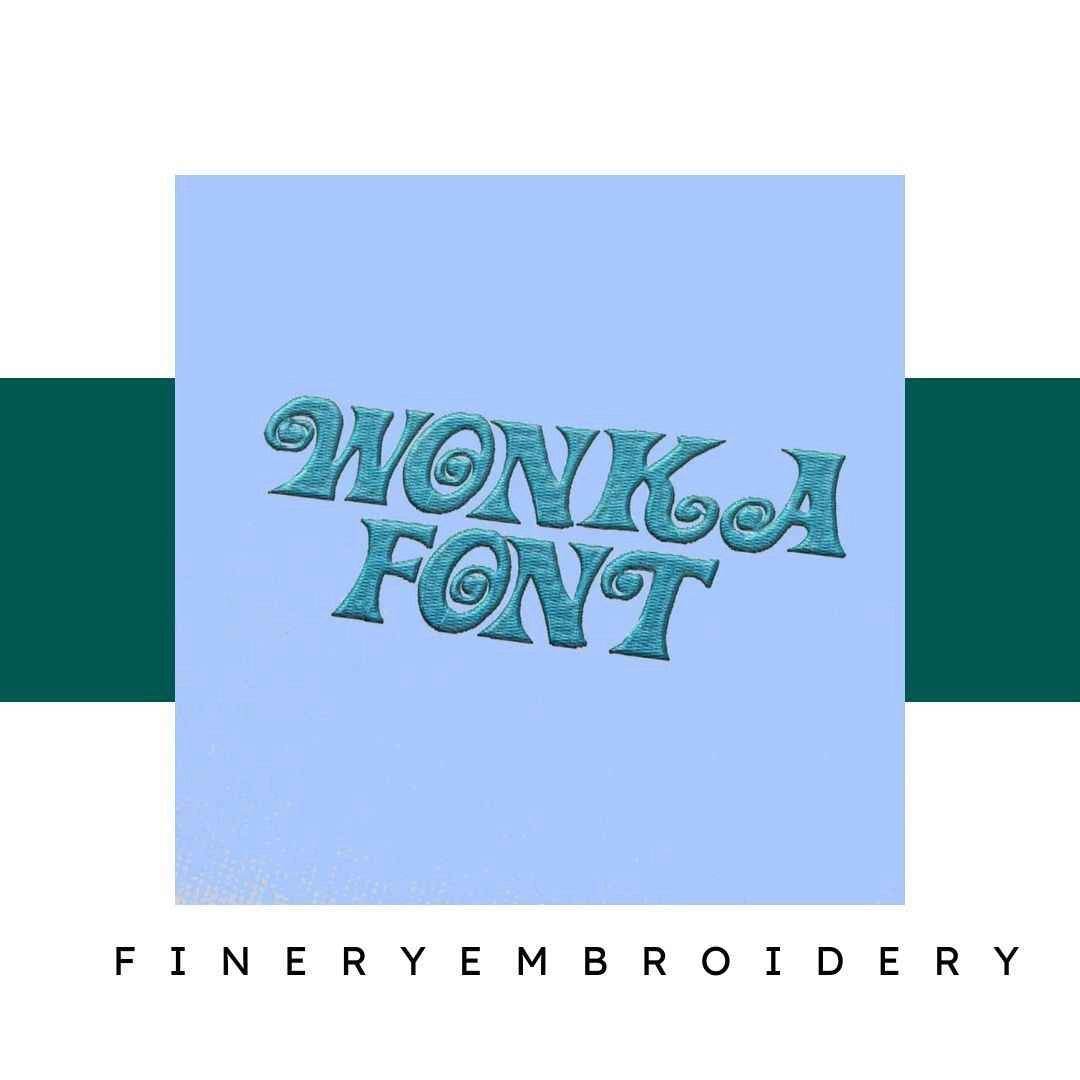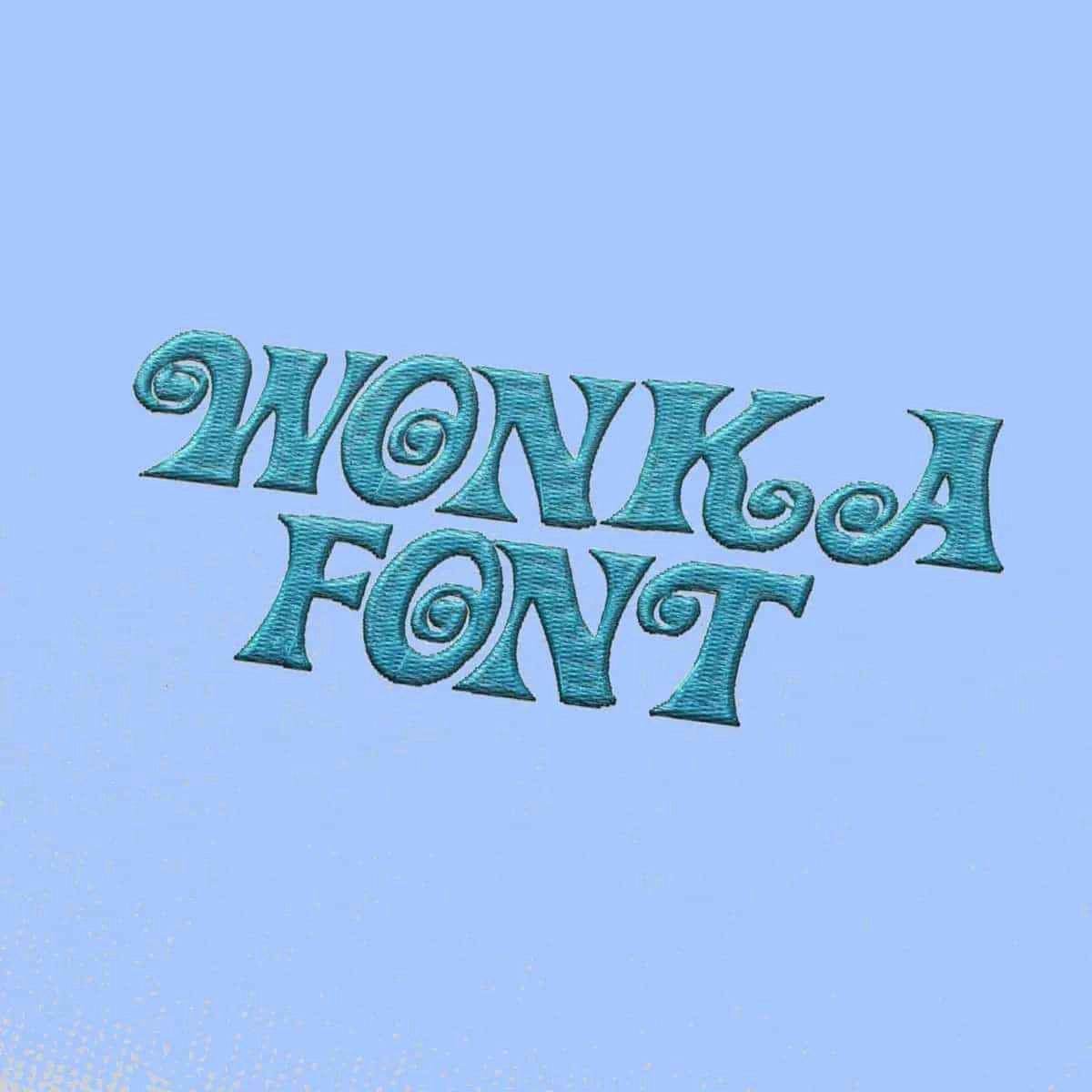
Wonka Embroidery alphabet Font Set
Unleash your creativity with the Wonka Embroidery Alphabet Font Set, where elegance meets versatility, inspiring every embroidery project!
Introducing the Wonka Embroidery Alphabet Font Set – a meticulously crafted collection of elegant and high-quality embroidery fonts designed to transform your projects into stunning pieces of art. This unique set is perfect for anyone looking to add a personal touch to their embroidery work, whether you are a beginner or a seasoned professional.
Why You'll Love This Design
With the Wonka Embroidery Alphabet Font Set, you’ll find each letter beautifully designed to radiate sophistication. The versatility of the fonts allows you to create everything from delightful monograms to inspiring quotes. Your embroidery creations will stand out with a touch of charm and professionalism that captivates the eye.
Creative Applications
Imagine the possibilities! Whether you're personalizing gifts, creating unique home decor, or crafting custom apparel, this font set opens the door to boundless creativity. The elegant designs are perfect for adding that special flair to your projects, making them memorable keepsakes for any occasion.
Digitized for Passionate Embroiderers
- Perfect for monograms, quotes, and decorative elements.
- Elevate your embroidery projects with high-quality, elegant designs.